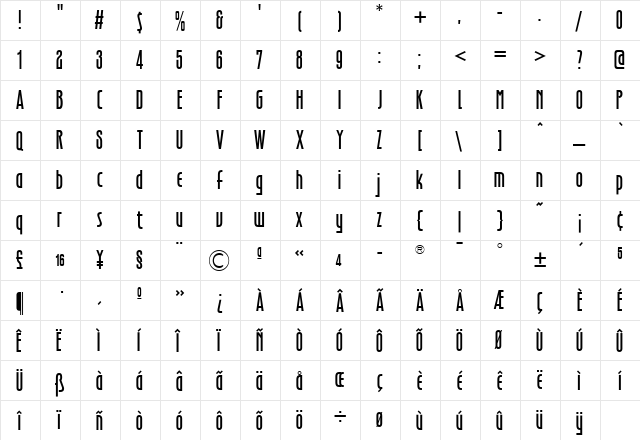
TFHotelmoderne Medium
| Year | 1987 |
Design Context for TFHotelmoderne Typeface
TFHotelmoderne takes a measured approach to typography — its balanced proportions and neutral character make it a reliable workhorse for both digital and print work.